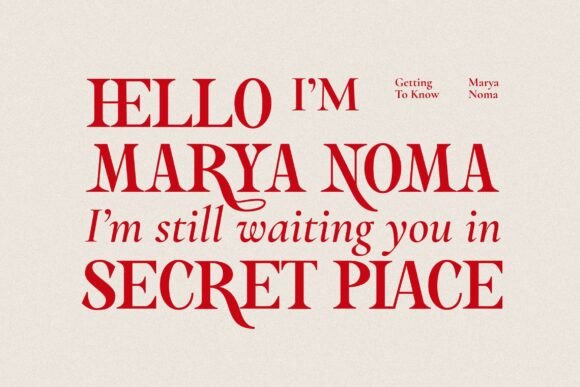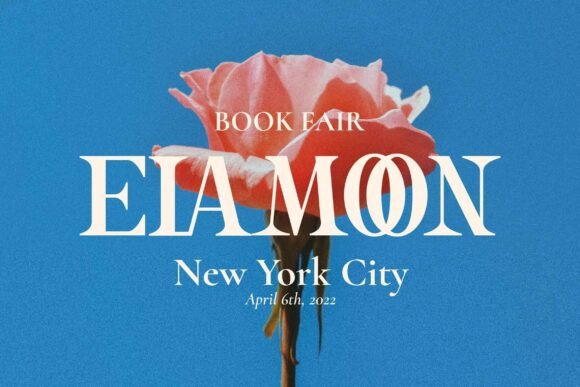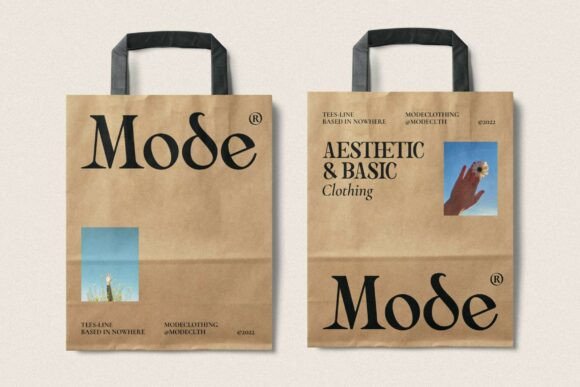
Introduction to Mistont Font
As designers, we’ve all been there – staring at a blank page, trying to conjure up the perfect visual representation of our brand’s message. The perfect font can make all the difference, elevating our designs from meh to mesmerizing. That’s where the Mistont Font comes in – a stunning, modern serif display font that adds a touch of elegance and sophistication to any design project.
With its sharp contrast and flowing swashes, the Mistont Font is the perfect solution for designers seeking a high-end look without sacrificing readability. Whether you’re working on a premium brand, magazine, or packaging design, this font is sure to make your project stand out. And the best part? It’s now available for free download, complete with a transparent background and high-quality design resource.
For designers, having access to a versatile and stylish font like the Mistont Font is invaluable. It opens up new creative possibilities and allows us to push the boundaries of what’s possible in design. Whether you’re working on a personal project or a high-stakes campaign, the Mistont Font is a valuable addition to any design arsenal.
Key Features of Mistont Font
- High-quality font design with a unique, creative style suitable for various design projects.
- Supports a wide range of languages, including Latin, Cyrillic, and Greek alphabets.
- Perfect design resource for creative projects, including graphic design, web design, and typography-based art.
Honest Review: Mistont Font
I recently had the chance to work with the Mistont Font, and I must say it’s been a mixed bag. On the one hand, the high quality of the font is undeniable – it’s crisp, clean, and perfect for a variety of design projects. The transparent background is also a nice touch, making it easy to layer over other design elements.
Here are some things that work well with the Mistont Font:
- ✨ Great for headings and titles – the font’s bold, eye-catching style makes it perfect for grabbing attention.
- ✨ Easy to customize – the font is highly versatile and can be used in a variety of creative projects, from logos to brochures.
On the other hand, there are a few limitations to consider:
- ⚠️ Limited character set – the font only includes a limited number of characters, which can make it difficult to use for longer pieces of text.
- ⚠️ Not ideal for small text – the font’s bold style can make it difficult to read in smaller sizes.
Overall, I’d say the Mistont Font is a solid choice for design projects, but it’s not without its limitations. With a little creativity and planning, it can be a great addition to your design toolkit.
Tips for Getting the Most Out of Mistont Font
For a transparent background, use the font’s outline or stroke feature. To add a creative touch, experiment with different font sizes, colors, and arrangements.
The Mistont Font is ideal for various creative projects, including:
- Brochure design
- Infographic design
- Wedding invitation design